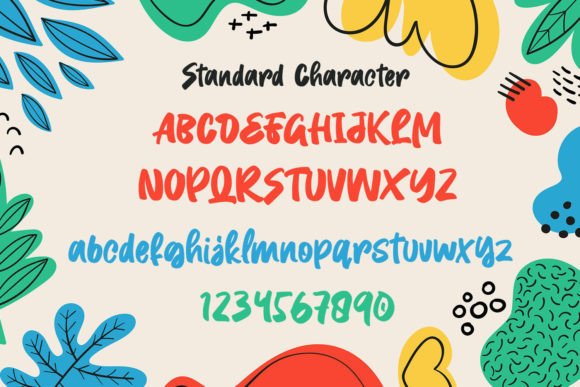
The Sweet Spot: Discovering Daily Minda Font
I’ll never forget the moment I stumbled upon Daily Minda font while working on a wedding invitation project for a client. I had tried countless fonts, but none seemed to capture the playful, joyful vibe I was going for. As a designer, there’s nothing more frustrating than getting stuck on a project, but that was when I fell in love with Daily Minda’s sweet and trendy display style. ✨
So, what makes Daily Minda font so special? Here are a few things that have won me over:
- ✅ Cute and joyful style: Daily Minda’s playful curves and lines make it perfect for projects that require a touch of whimsy.
- ✅ Highly versatile: From wedding invitations to social media posts, this font adapts seamlessly to various design contexts.
- ✅ Easy on the eyes: The font’s clear and legible design makes it perfect for both digital and print applications.
Of course, no font is perfect, and Daily Minda has a few minor quirks:
- ⚠️ Limited use in body text: While Daily Minda shines as a display font, it may not be the best choice for longer blocks of text due to its stylized design.
- 🤔 Some glyphs may require adjustment: Depending on the context, you might need to tweak certain glyphs to ensure they fit perfectly with the rest of your design.
The Story Behind Daily Minda
While the true story behind Daily Minda’s creation remains a mystery, it’s easy to imagine that the font was designed with love and care. Perhaps the designer, inspired by the joy of everyday moments, set out to create a font that would bring a smile to people’s faces. Whatever the inspiration, Daily Minda’s sweet and trendy style has captured the hearts of designers and crafters alike.
| Font Name | Daily Minda Font |
| What makes Daily Minda font so special? | Its unique blend of playfulness and elegance makes it perfect for a wide range of design projects. |
| Is Daily Minda suitable for body text? | While it’s primarily designed as a display font, Daily Minda can be used for short paragraphs, but may not be ideal for longer blocks of text. |
| Can I use Daily Minda on social media? | Absolutely! Daily Minda’s clear design makes it perfect for social media posts, captions, and more. |